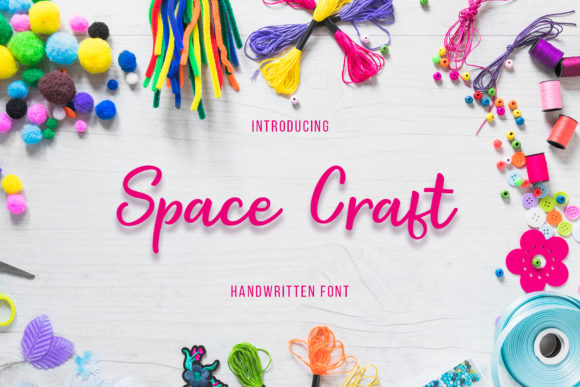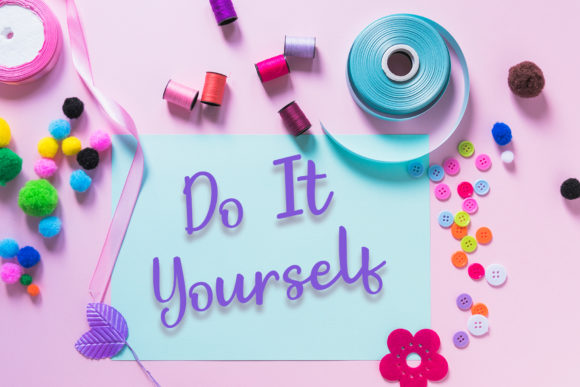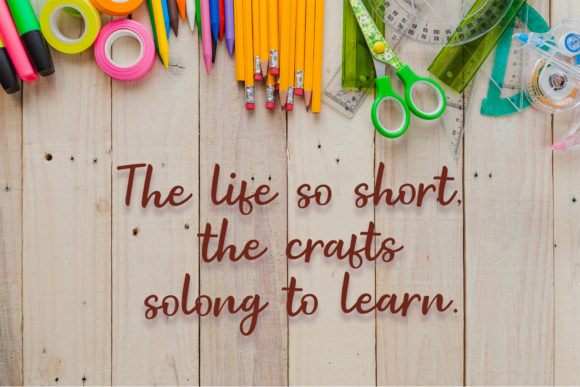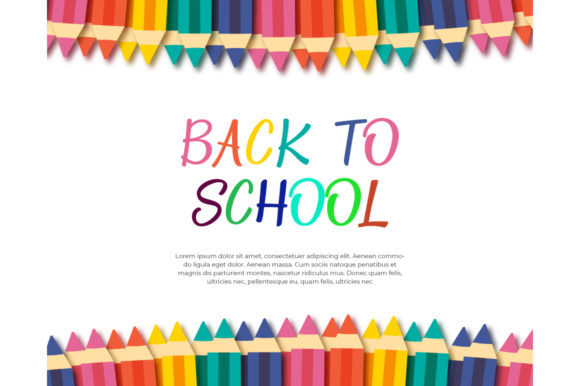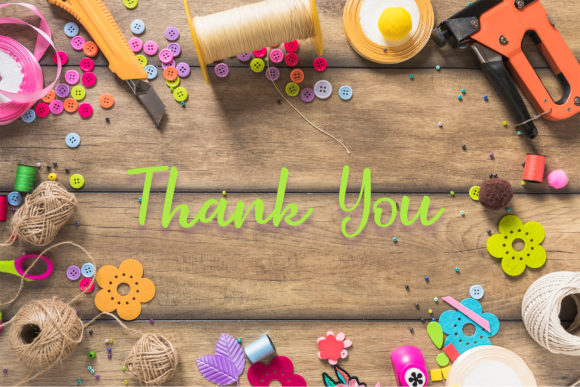
Space Craft Font
About Space Craft Font
Space Craft is an incredibly sweet and modern handwritten font with lots of authentic charm! Get inspired by its whimsical feel, and turn any design project into a stand out.